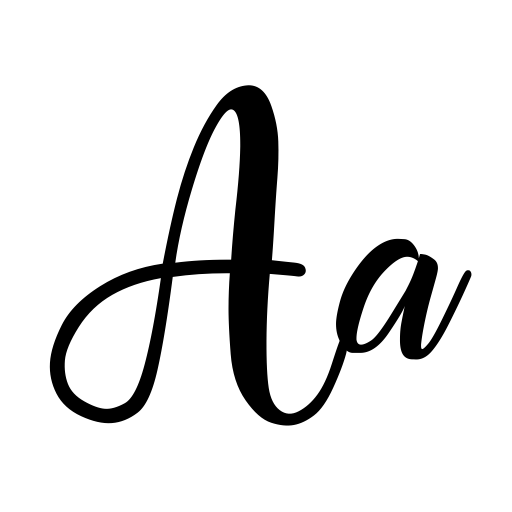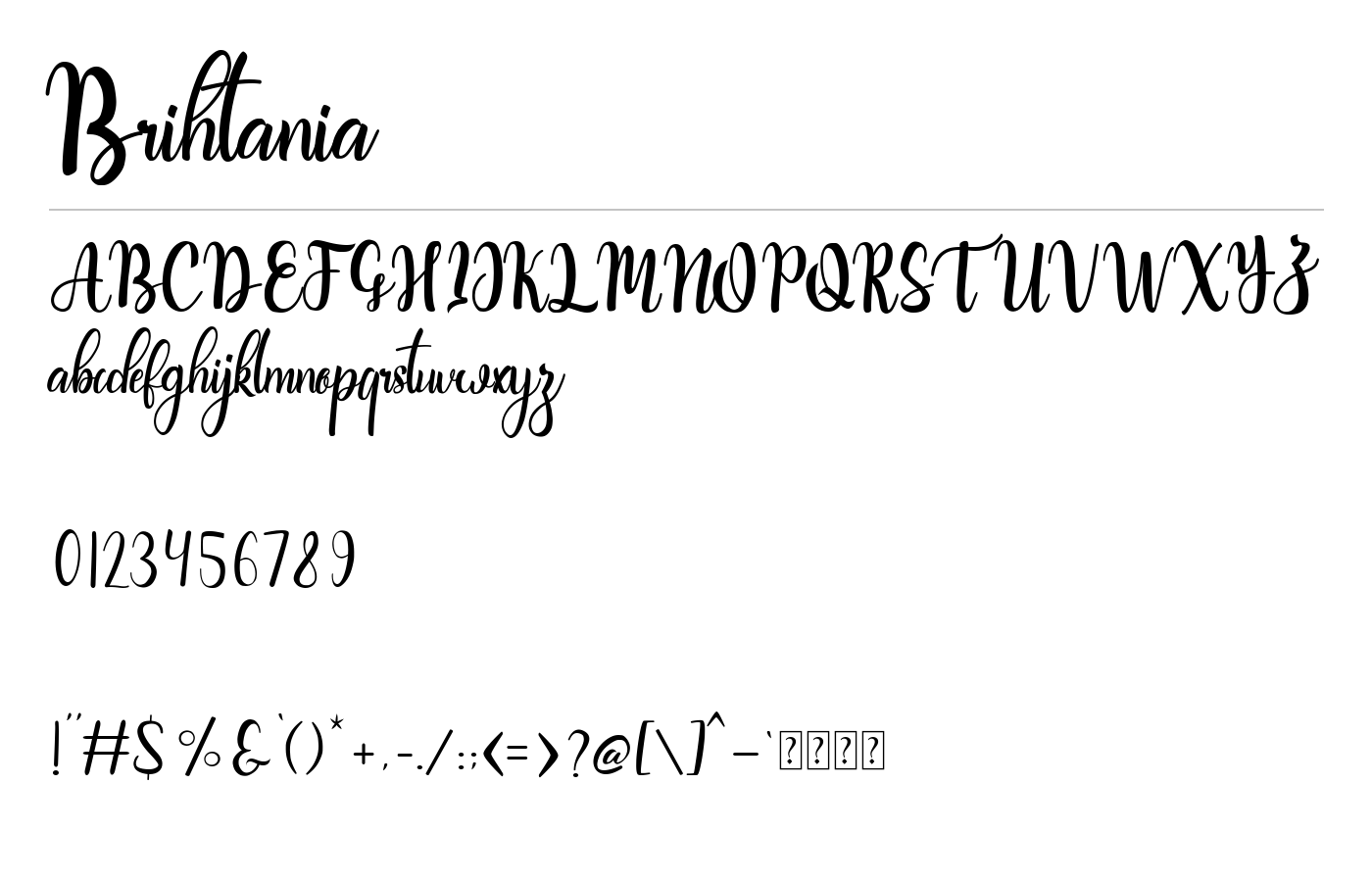
Brihtania is an elegant script font with flowing, calligraphic strokes and a lively personality. Its stylish uppercase letters blend smoothly with slender lowercase forms, making it ideal for creative branding, invitations, and feminine design projects. The font’s graceful curves and moderate weight give it a refined yet approachable feel, perfect for adding a personal, artistic touch to headlines and logos.
Brihtania Font